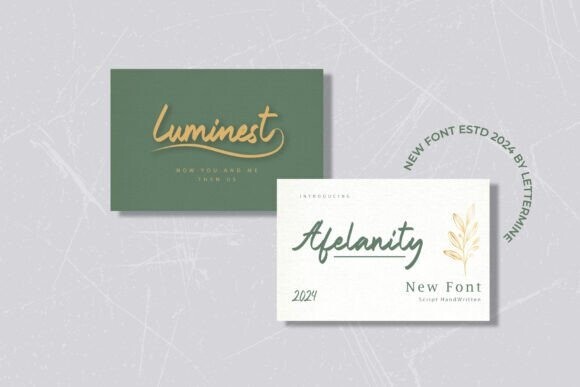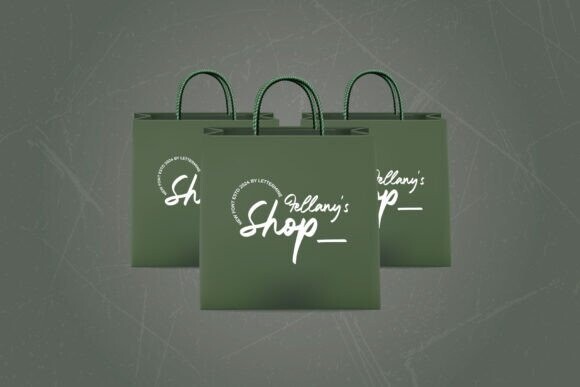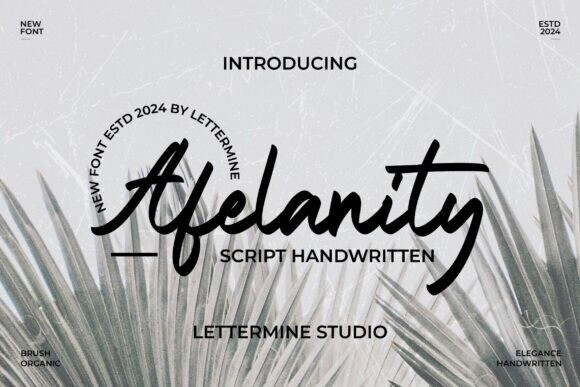
Afelanity Font
Designer: Lettermine
Afelanity Font is a charming and graceful handwritten script font designed to bring a personal and sophisticated touch to your projects. Its smooth, flowing strokes and carefully crafted ligatures make it perfect for designs that require both elegance and readability. Afelanity is a versatile font that offers a balance between style and function, making it a great choice for various creative needs.